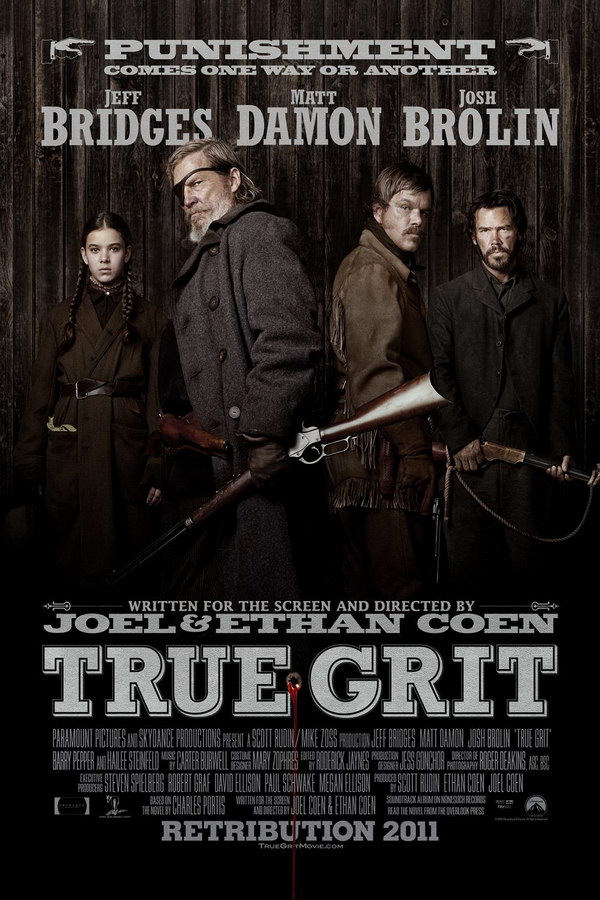
True Grit Font
Fonts in UseTrue Grit is a 2010 Western film directed by the Coen brothers, featuring a determined young girl seeking justice for her father's murder, accompanied by a tough U.S. Marshal and a Texas Ranger on a perilous journey through the Wild West.
The movie title on the poster appears to use Rockwell Bold, a slab serif font created by Frank Hinman Pierpont in 1934. You can find more information about this commercial font here.